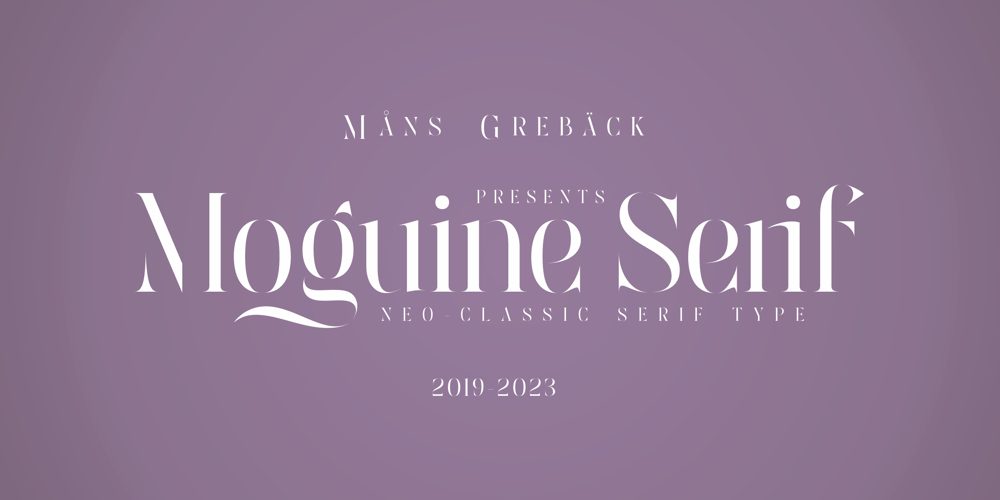
Moguine Serif Font Family was designed by Måns Grebäck and published by Mans Greback. Moguine Serif contains 2 styles and family package options. Moguine Serif is a neo-classic serif typeface. With disappearing hair thin lines and weighted vertical strokes, this modern font family is the perfect lettering for a headline. Why not use Moguine Serif for a short poem or quote that requires a neutral but beautifully clean look. Created with pride and care, this type has the optimal appearance of a classic vintage logo but for a modern setting. The font family consists of the styles Regular and Italic. The font is built with advanced OpenType functionality and has a guaranteed top-notch quality, containing stylistic and contextual alternates, ligatures and more features; all to give you full control and customizability. It has extensive lingual support, covering all Latin-based languages, from Northern Europe to South Africa, from America to South-East Asia. It contains all characters and symbols you’ll ever need, including all punctuation and numbers.